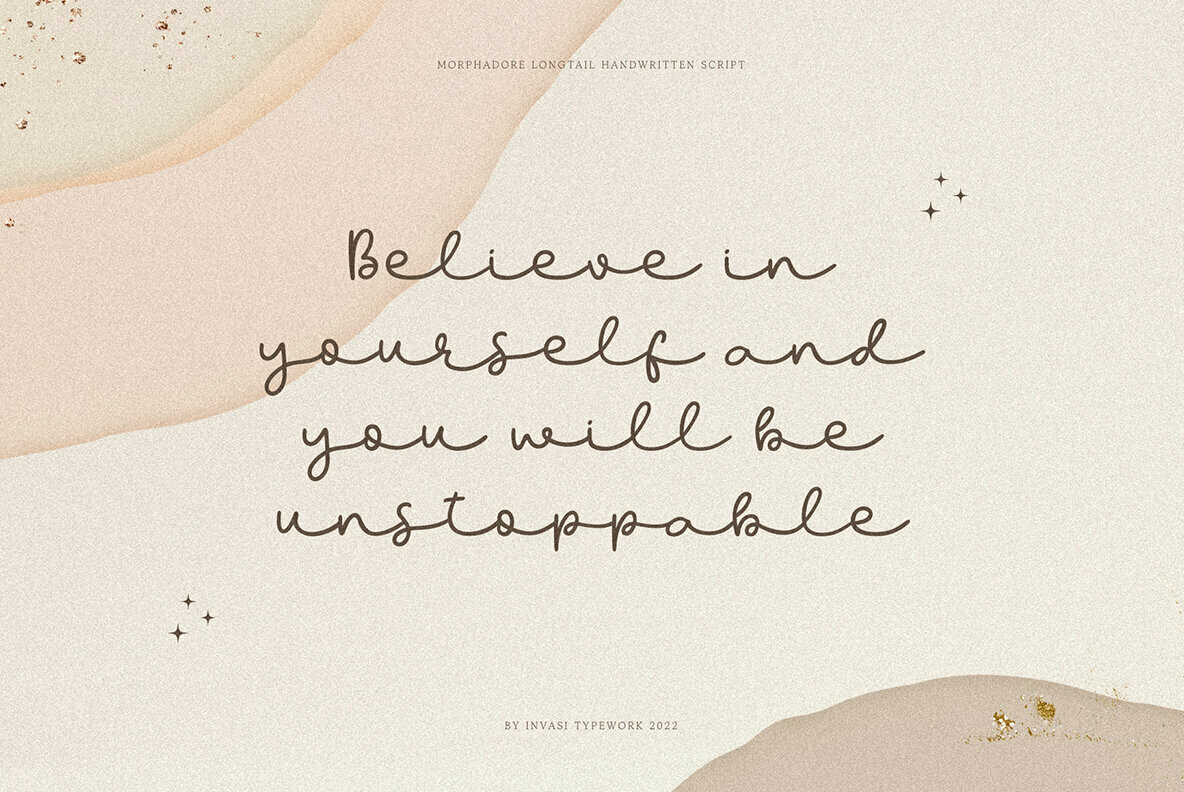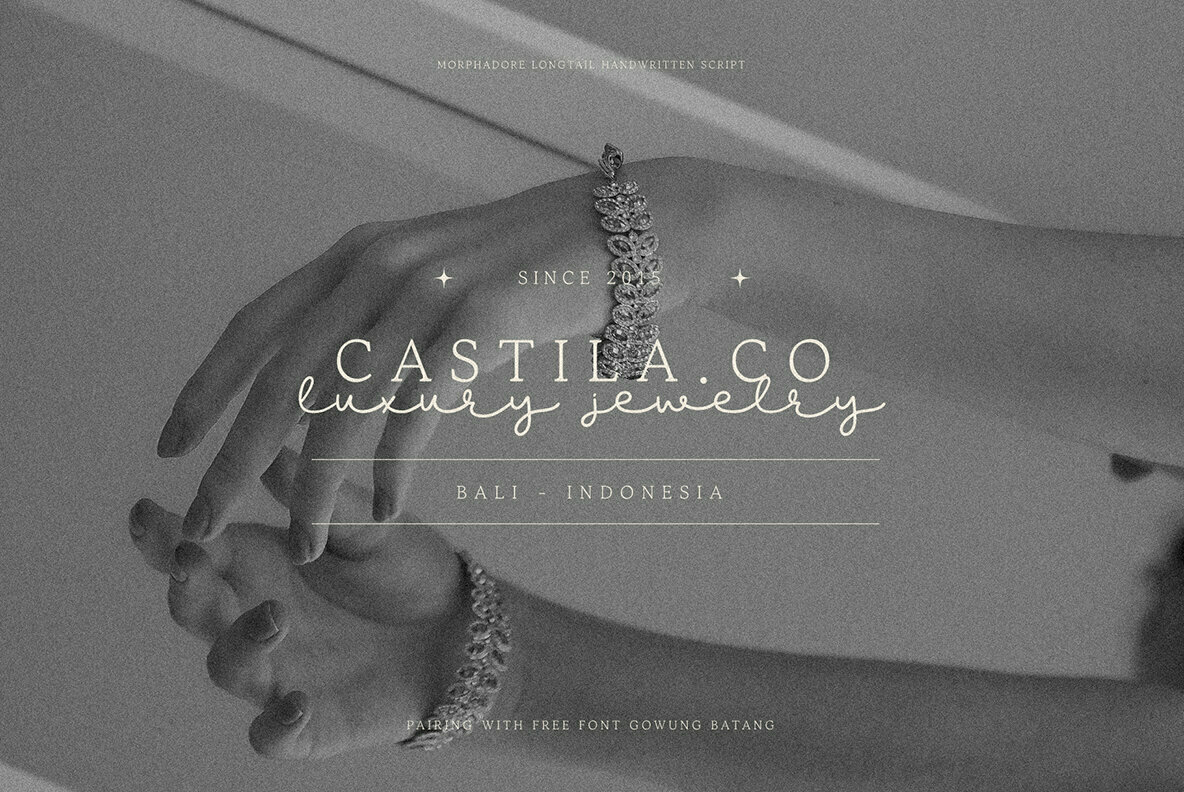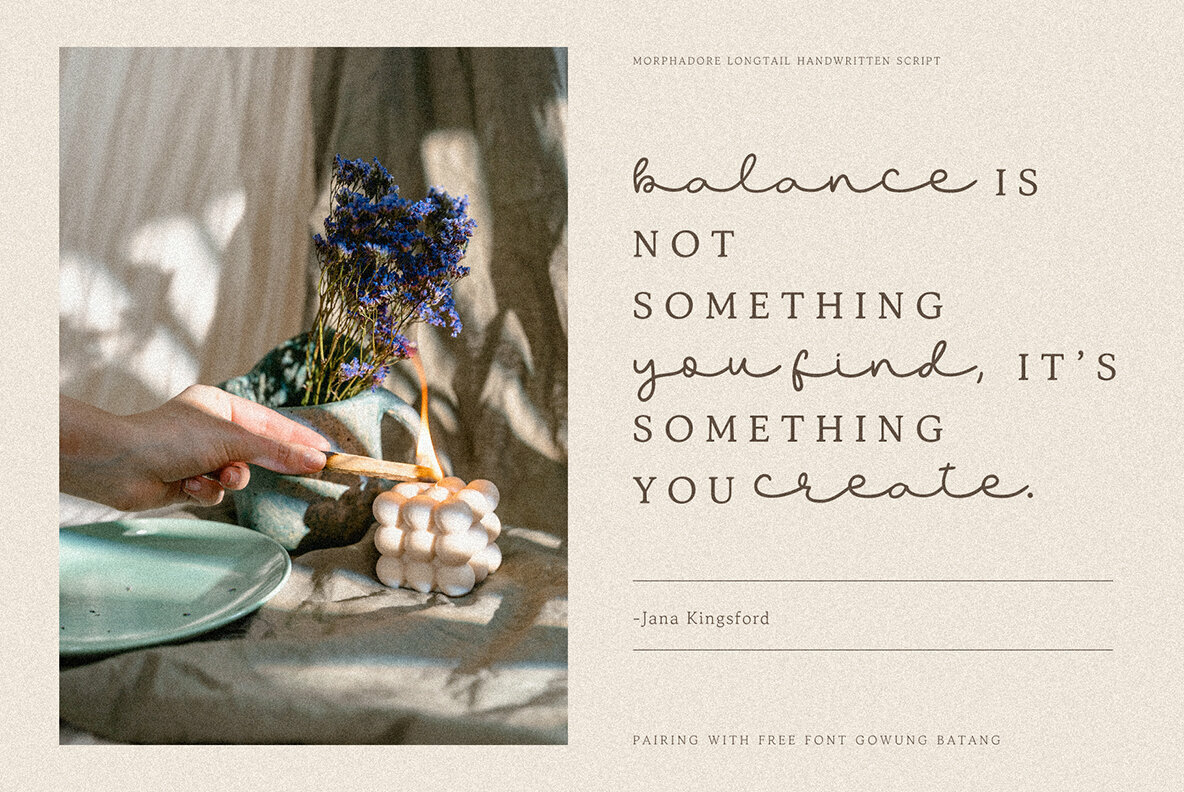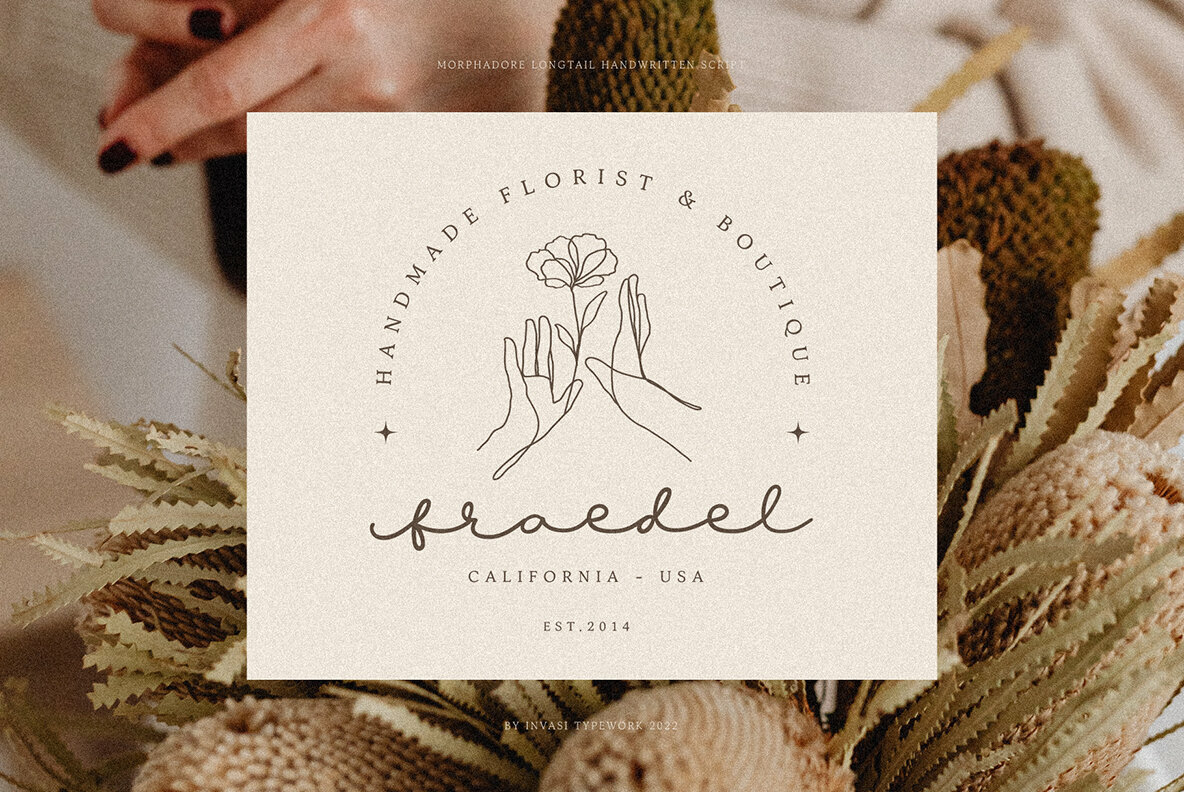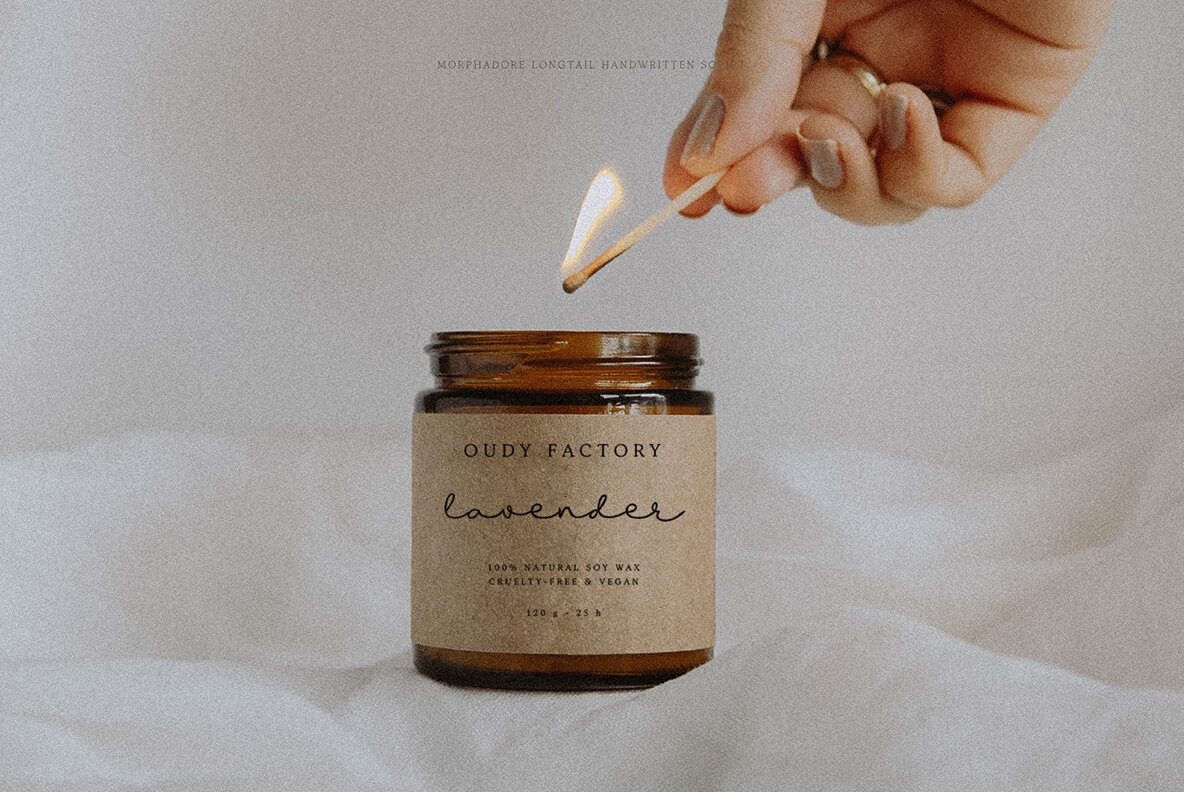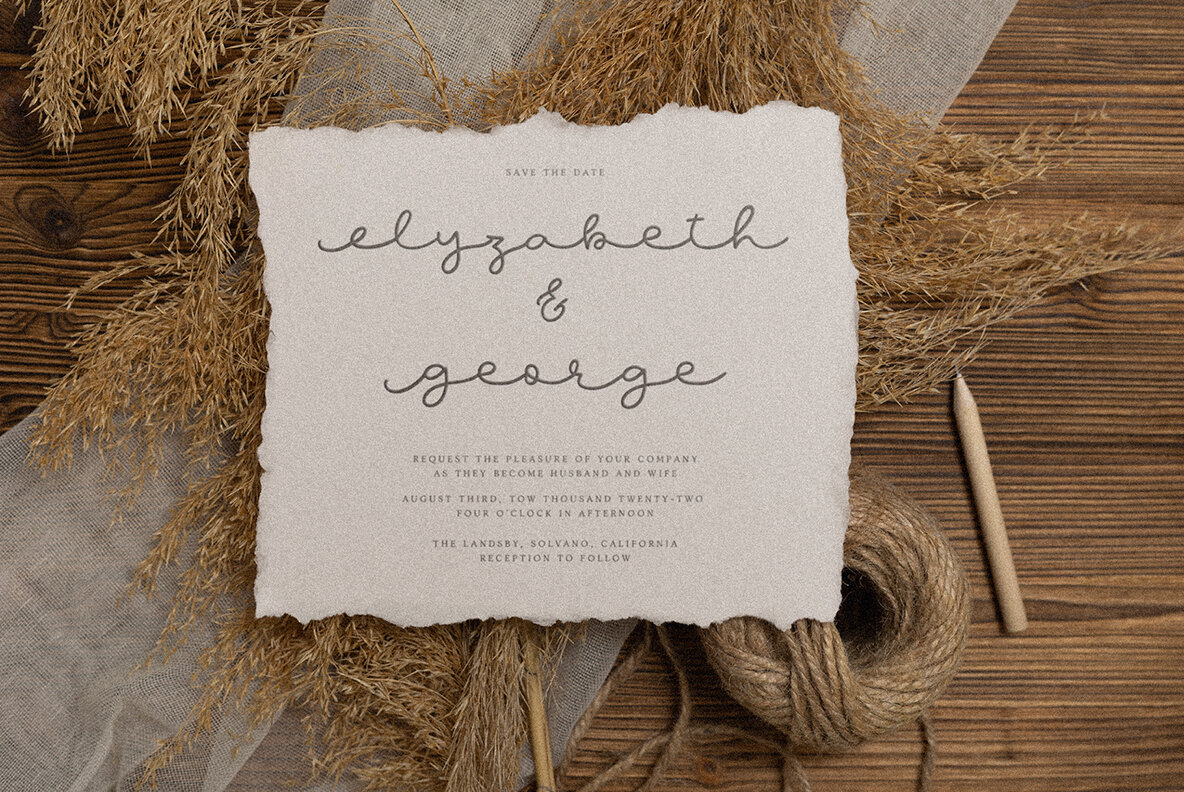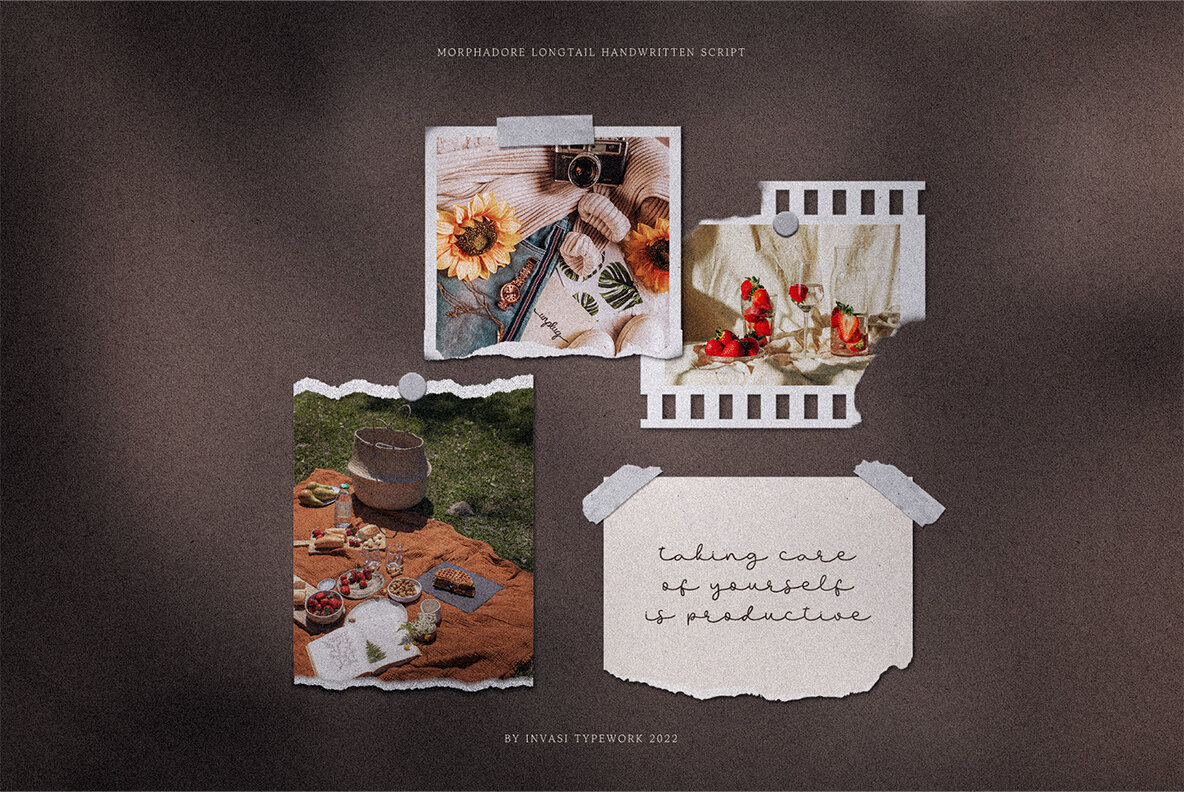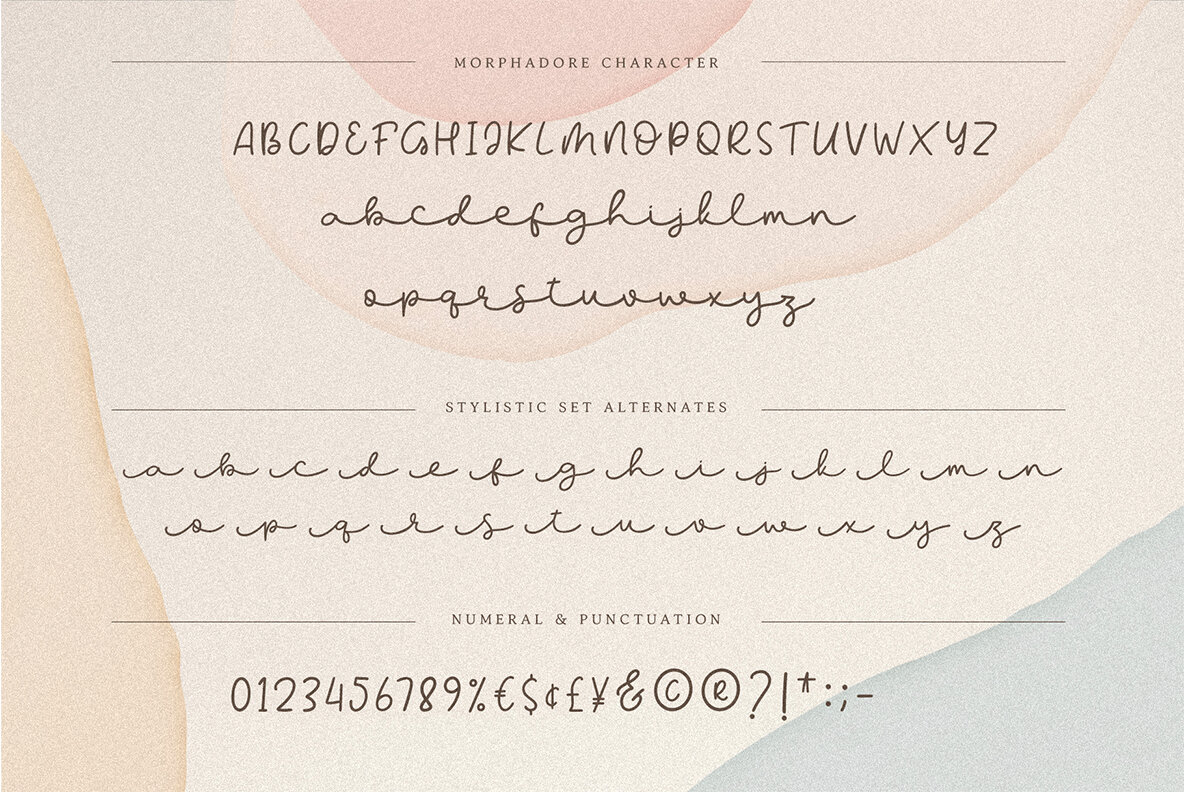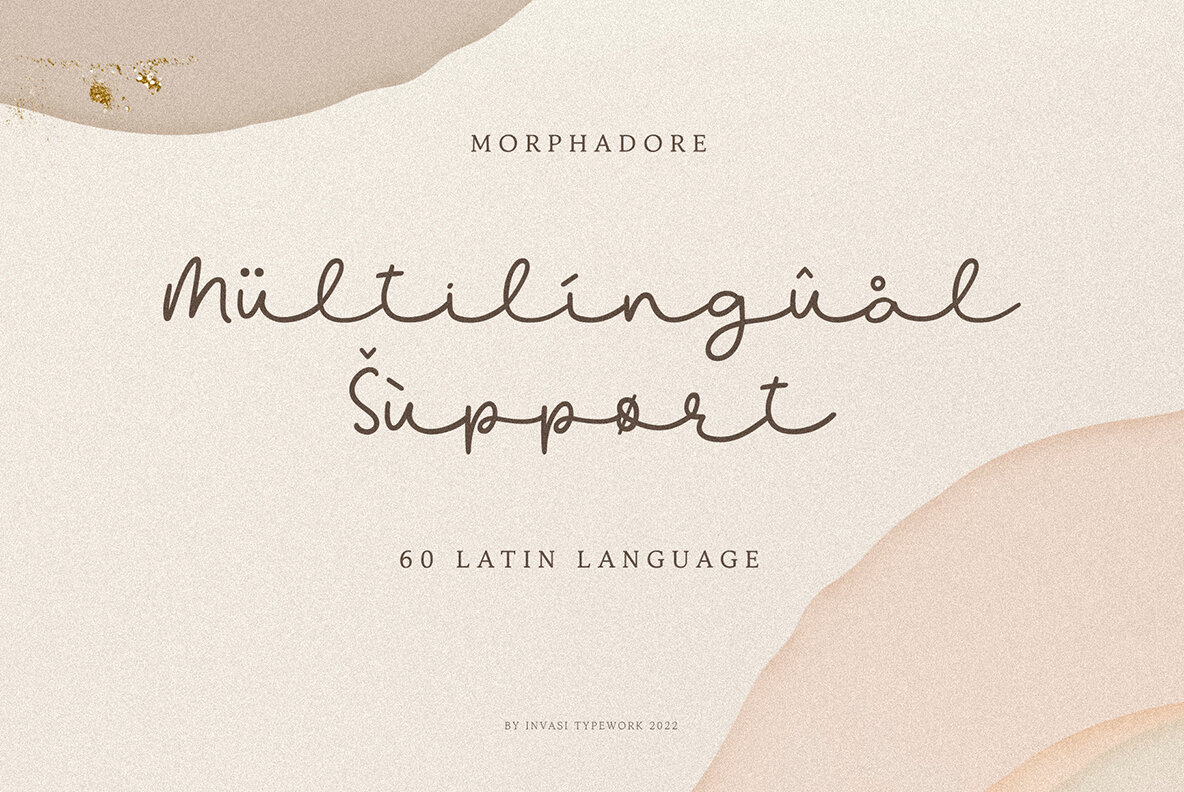
Morphadore Font
Morphadore Regular
The Morphadore font brings elegance and luxury by offering a monoline handwritten style. With Morphadore you can create elegant luxury logos, greeting cards, illustrations, quotes, charming branding, book covers, packaging, and much more.
- Numerals & Punctuation
- Multi-language Supports 60+ Latin based languages